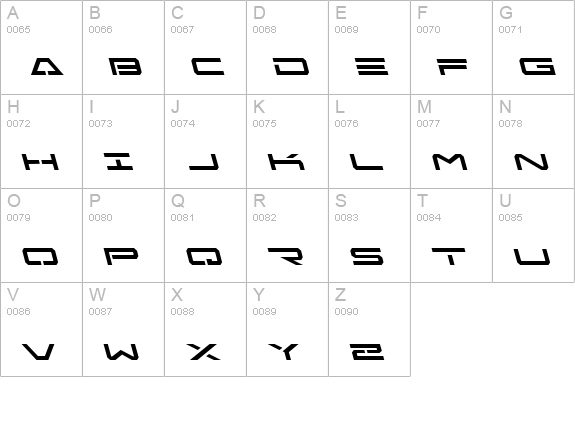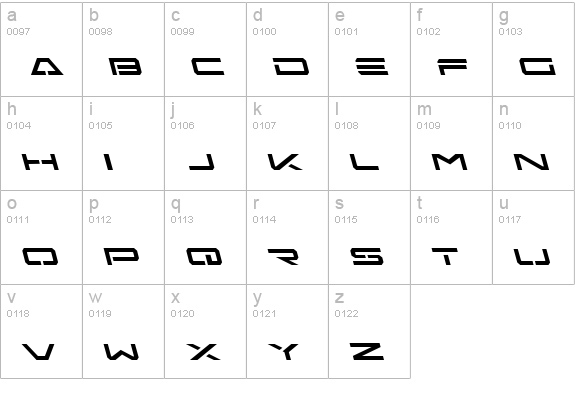
Introducing Free Agent Leftalic font, a sleek and modern typeface designed for those seeking a touch of sophistication in their projects. With its elegant curves and stylish flair, this font exudes a sense of creativity and innovation. The italicized style adds a dynamic and energetic touch to any design, making it perfect for a wide range of applications. What sets Free Agent Leftalic font apart is not only its striking appearance but also its accessibility. As the name suggests, this font is free for personal and commercial use, allowing you to bring your creative visions to life without any constraints. You can easily download Free Agent Leftalic font at FontsMarket.com, where it is readily available for you to incorporate into your projects. Whether you're designing a logo, creating branding materials, or working on a website, Free Agent Leftalic font is sure to elevate your work with its unique charm and versatility. Embrace the freedom of expression with this remarkable typeface and let your creativity shine.